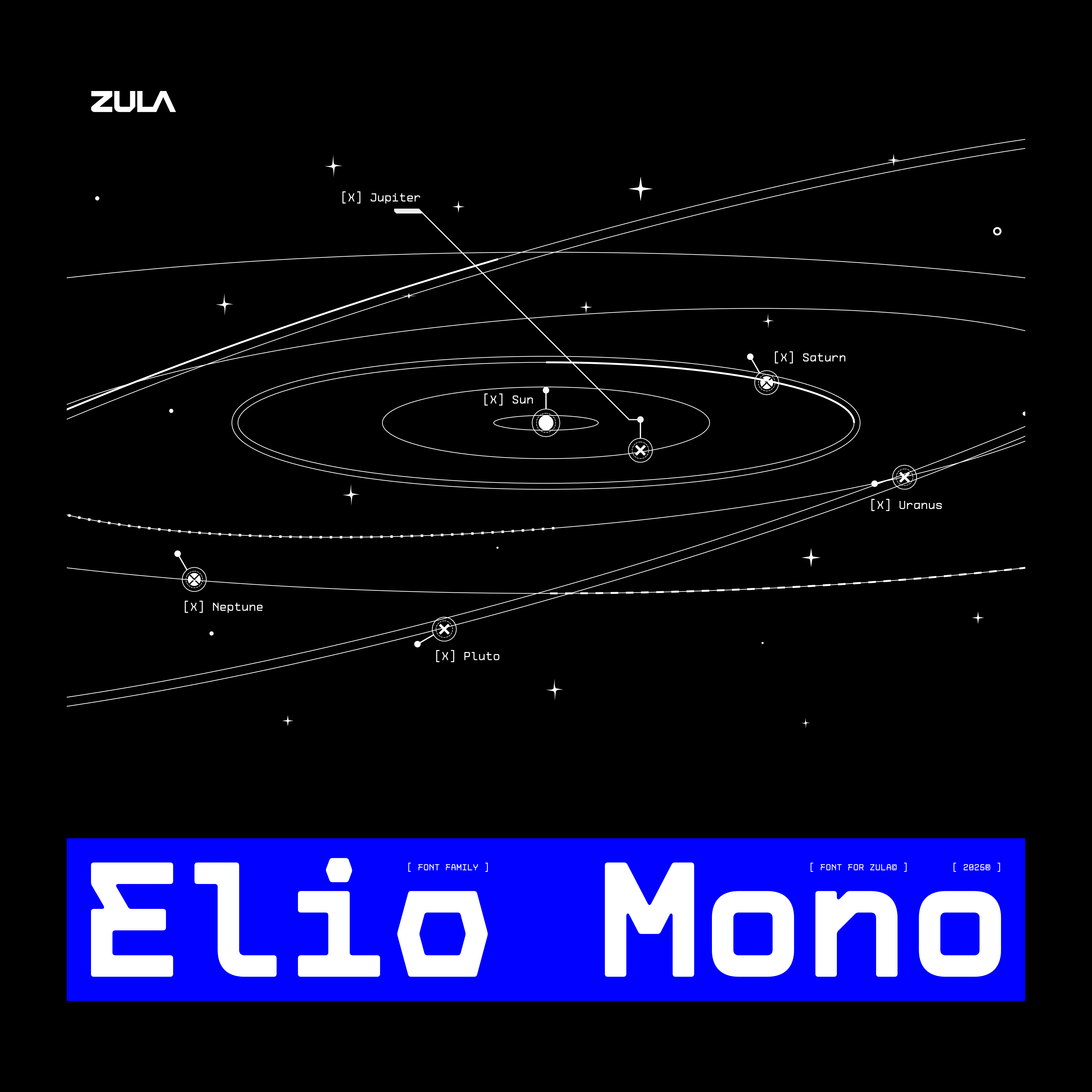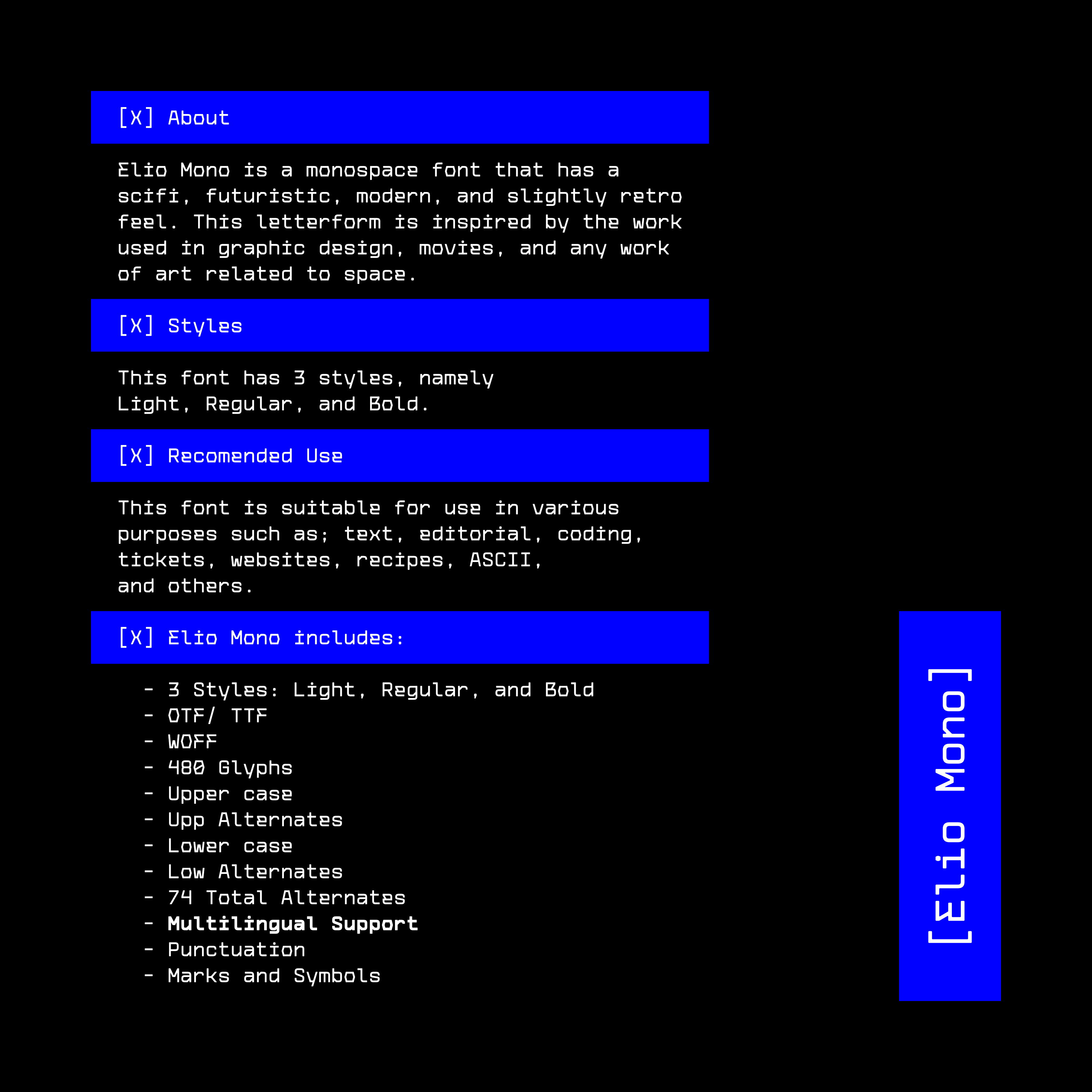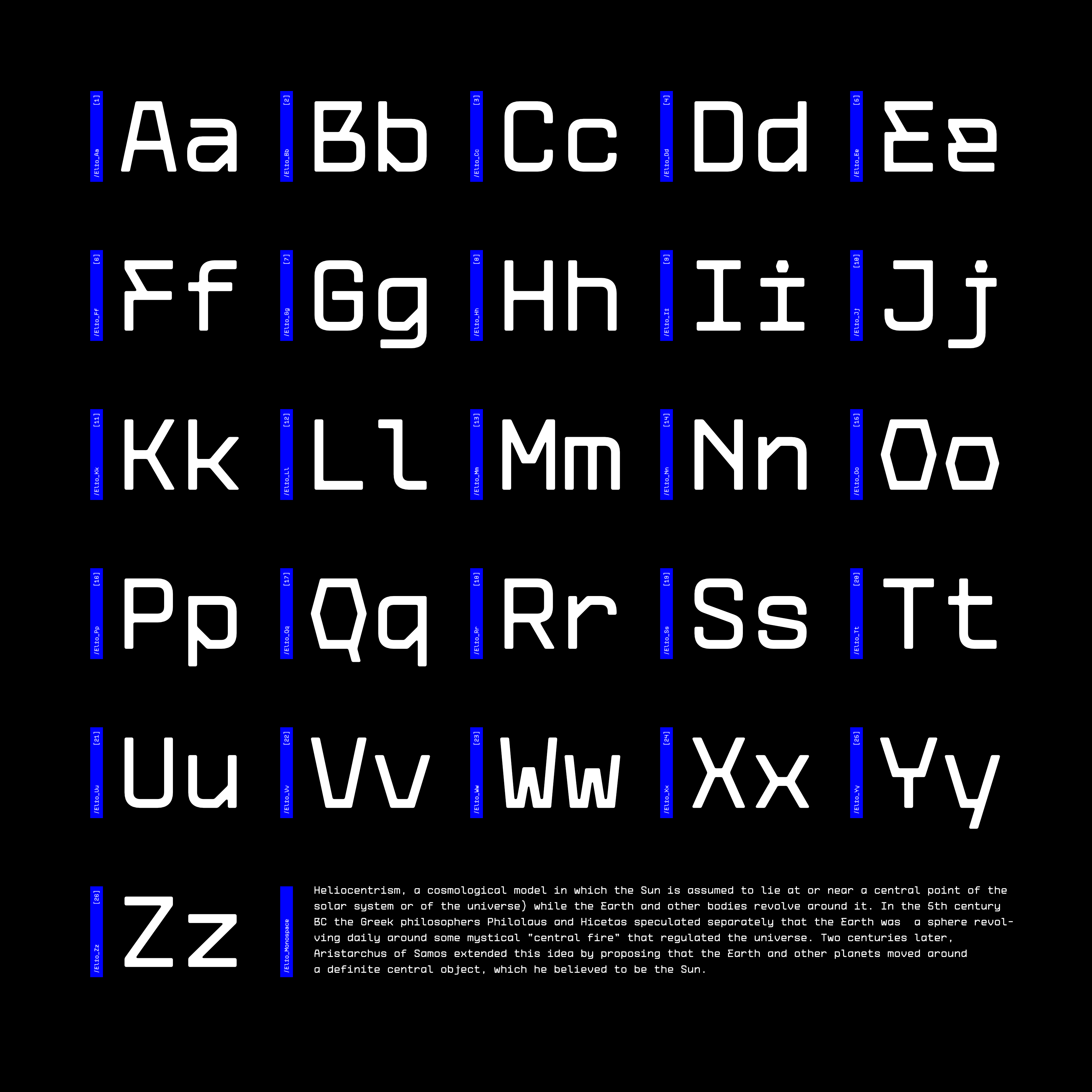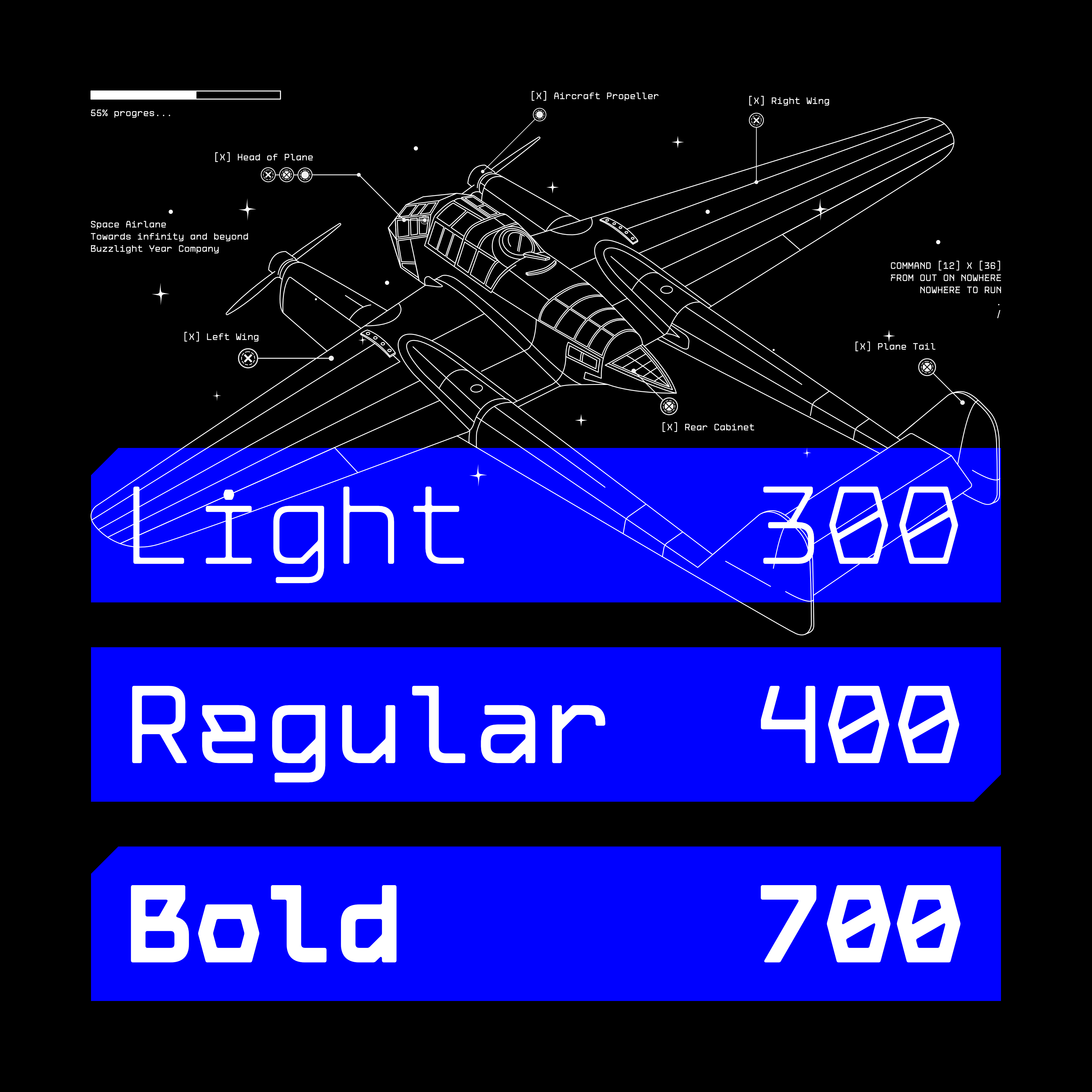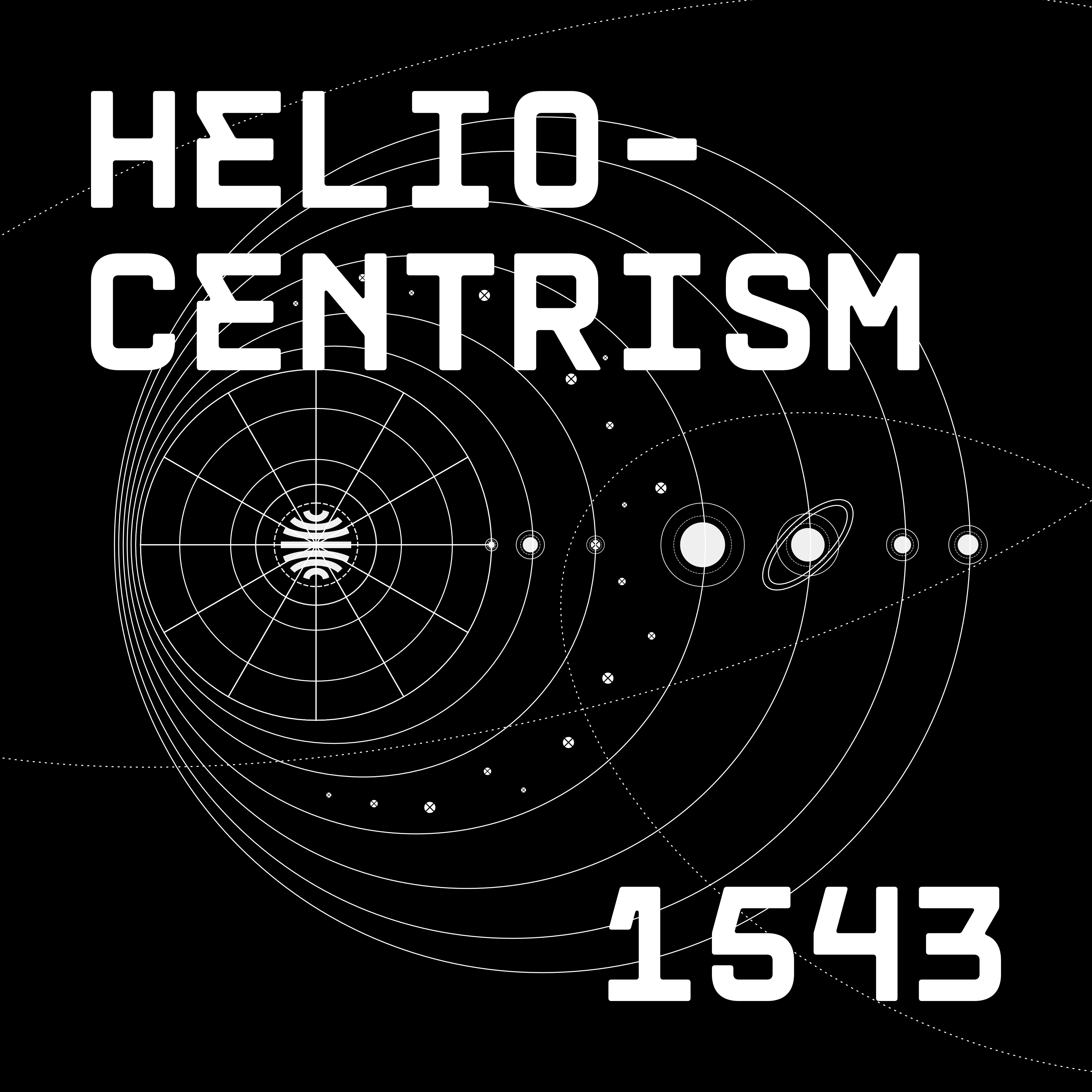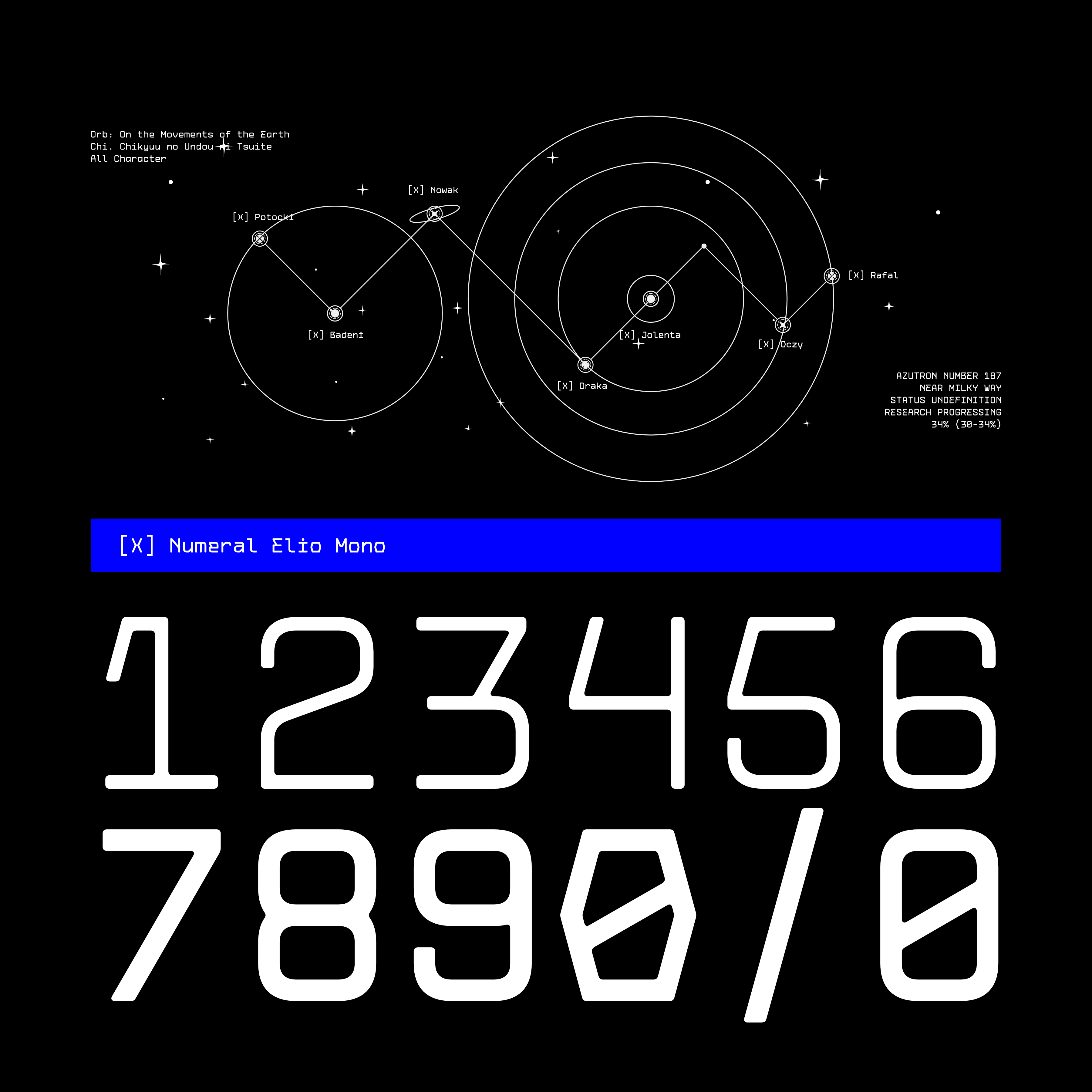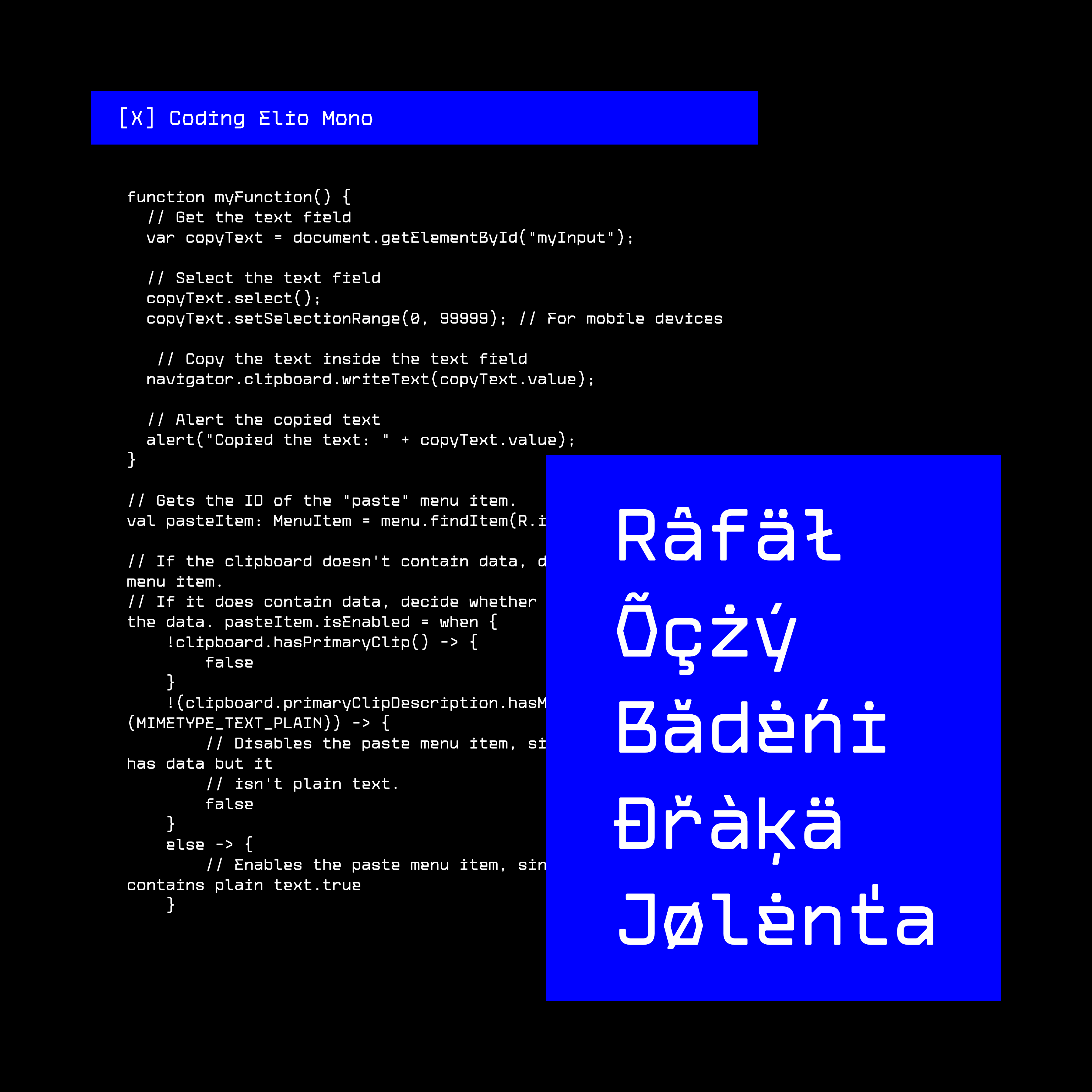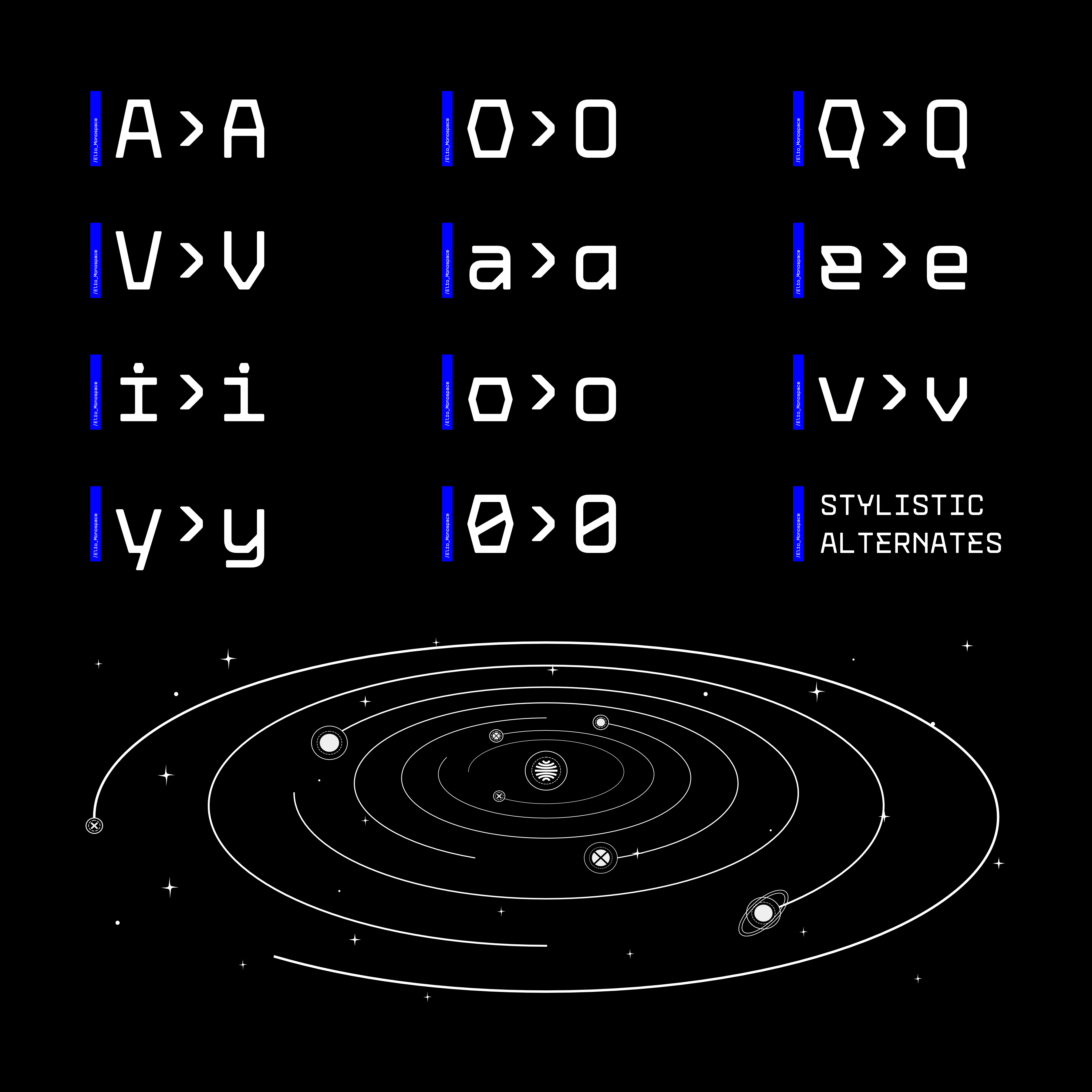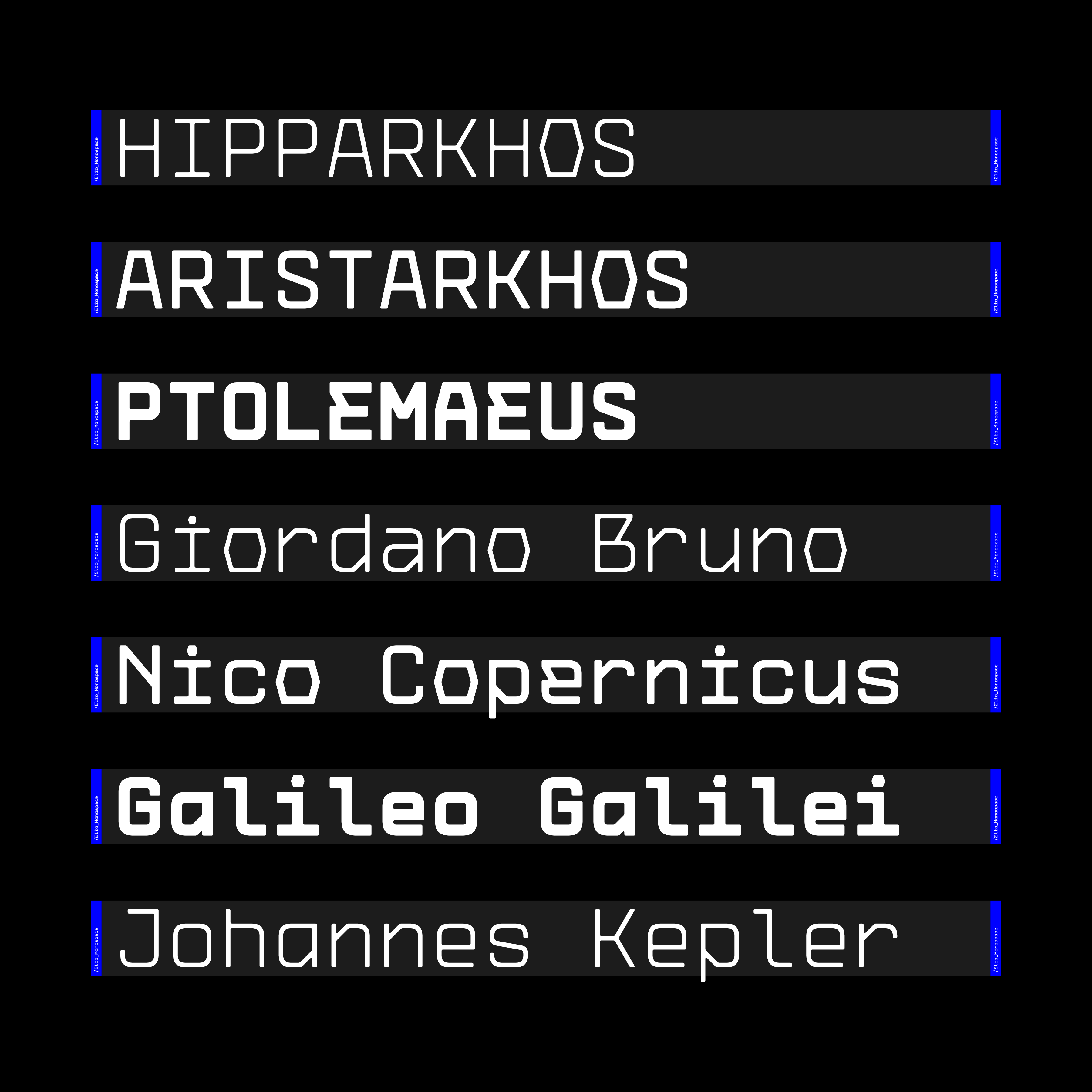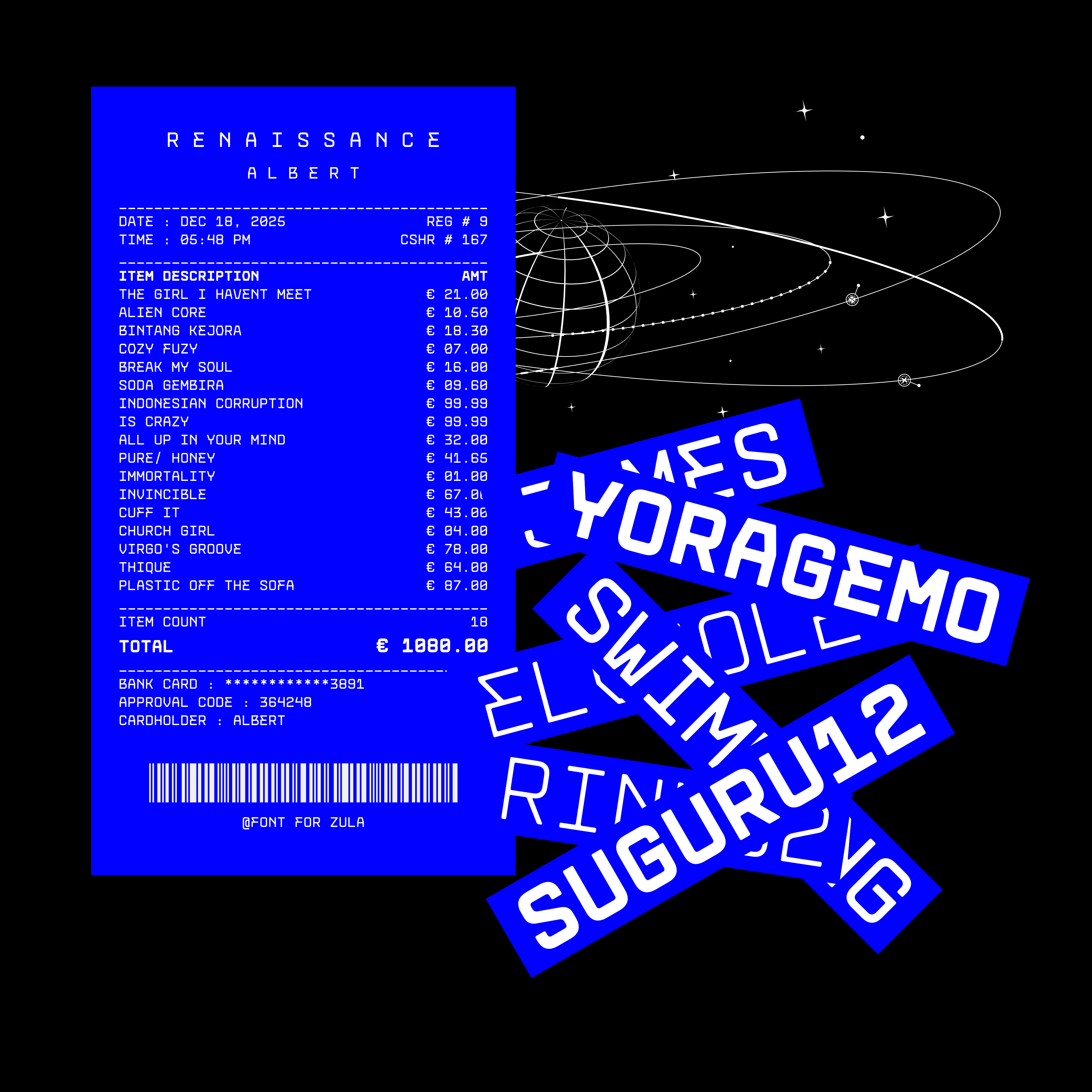
Elio Mono Font Family
Elio Mono is a monospace font that has a sci-fi, futuristic, modern, and slightly retro feel. This letterform is inspired by the work used in graphic design, movies, and any work of art related to space.
This font has 3 styles ; Light, Regular, and Bold.
Recomended Use ; This font is suitable for use in various purposes such as; text, editorial, coding,tickets, websites, recipes, ASCII, and others.